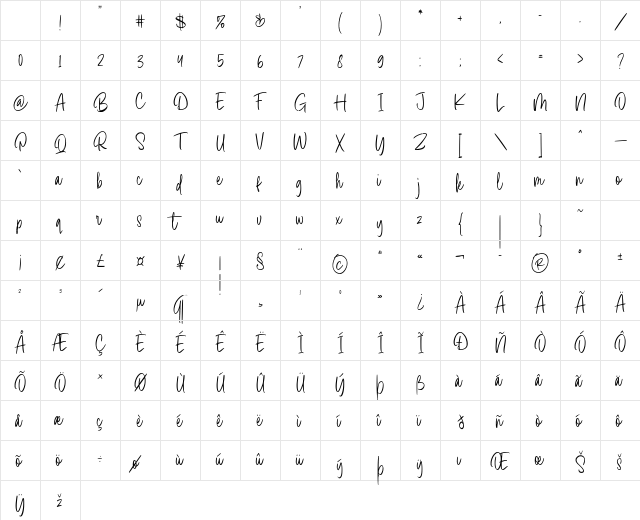
Complete Palms & Chill Regular glyph index. Displaying only characters natively supported by Palms & Chill Regular font.
Palms & Chill is a composed and adaptable typeface that performs quietly and consistently across a wide range of design contexts.
Who designed the Palms & Chill Regular font?